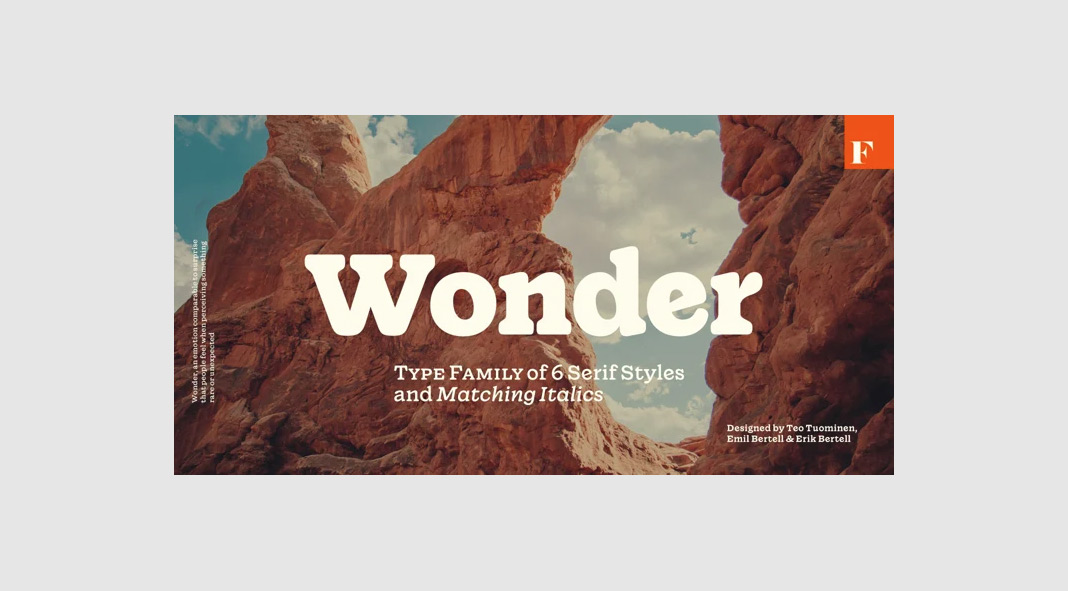
For those looking for something more organic, the Wonder font family might be the right choice for you.
Designed by Emil Bertell, Erik Bertell, and Teo Tuominen for foundry Fenotype, the Wonder font family is now available in six weights plus matching italics for each weight. Its friendly serif typeface offers a nice organic look and feel. Despite the kind of rustic flair, the Wonder font family is well suited for contemporary designs including branding, packaging, mobile apps, just to name a few. The Wonder font family is also equipped with several typographic features such as multiple numeral styles (old-style figures, tabular figures, subscript and superscript numerals), small capitals, and swashes. Just click on the following link to learn more.